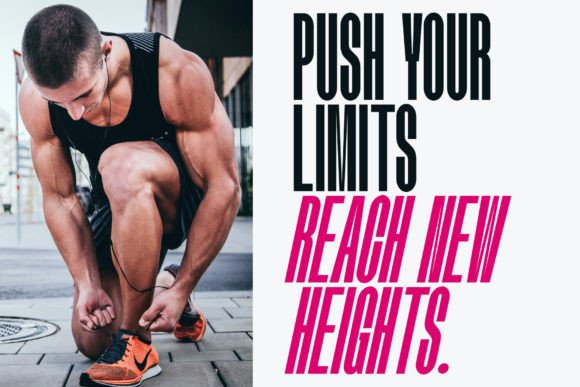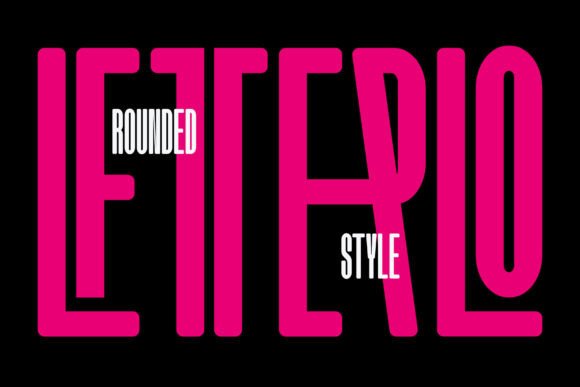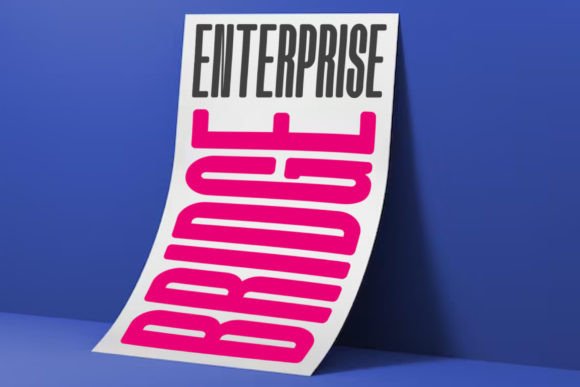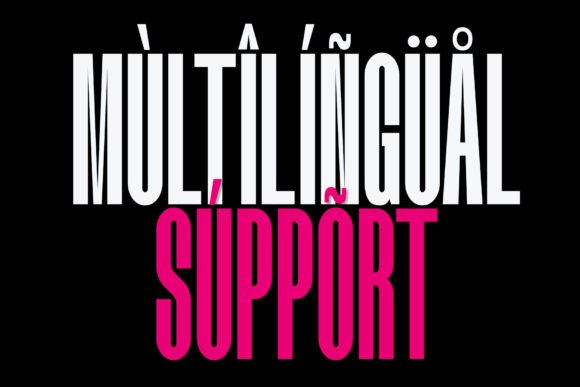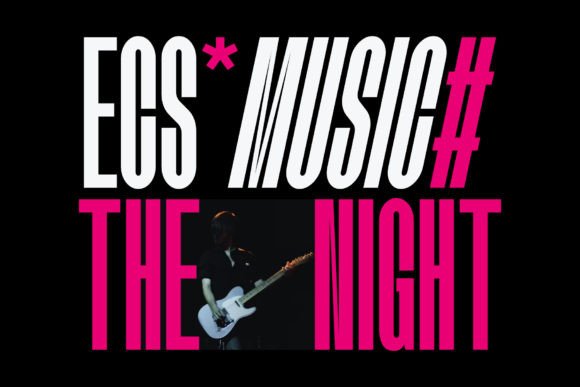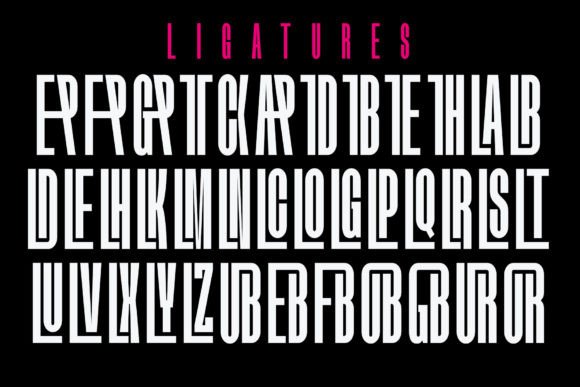
Introducing Grublack: A Modern Condensed Sans Font of Exceptional Typographic Excellence
In the world of typography, a font can make all the difference in the visual impact of a design. Grublack, a sleek and modern condensed sans font, is setting a new standard in typography with its exceptional design and extensive collection of meticulously crafted ligatures. Whether you’re a designer, crafter, or simply a typography enthusiast, Grublack is a font that deserves attention.
A Modern Design with Elegance and Functionality
Grublack’s contemporary design epitomizes elegance and functionality, making it perfect for a wide range of design applications. Its condensed sans style exudes professionalism and contemporary aesthetics, making it an ideal choice for projects that demand a refined and sophisticated look. From editorial layouts to branding materials, advertising campaigns, and digital interfaces, Grublack is a versatile font that can elevate your designs to new heights.
The Power of Ligatures: What Sets Grublack Apart
What truly sets Grublack apart from other fonts is its vast collection of expertly designed ligatures. With a wealth of ligatures at your disposal, Grublack allows you to create seamless connections between characters, infusing your typography with a sense of fluidity and artistry. These ligatures add sophistication, elevating your designs and captivating viewers with their visual allure. Whether you’re looking to create a sense of movement or simply add a touch of elegance to your typography, Grublack’s ligatures are sure to impress.
Applications of Grublack: Endless Possibilities
Grublack’s versatility is one of its greatest strengths, making it suitable for a wide range of design applications. Here are just a few examples of how you can use Grublack to elevate your designs:
- Editorial Layouts: Use Grublack to create stunning editorial layouts that showcase your content in a clear and elegant manner.
- Branding Materials: Grublack is perfect for creating professional branding materials, such as logos, business cards, and letterheads.
- Advertising Campaigns: Make a statement with Grublack’s bold and modern design, perfect for creating eye-catching advertising campaigns.
- Digital Interfaces: Use Grublack to create intuitive and visually appealing digital interfaces that showcase your brand’s personality.
Why Choose Grublack?
With so many fonts available, why choose Grublack? Here are just a few reasons why Grublack stands out from the crowd:
- Exceptional Typographic Excellence: Grublack’s design is meticulously crafted to provide exceptional typographic excellence, making it perfect for designs that demand high-quality typography.
- Extensive Ligature Collection: Grublack’s vast collection of ligatures provides endless possibilities for creative typography.
- Versatility: Grublack is suitable for a wide range of design applications, making it a valuable addition to any designer’s font library.
- Modern and Elegant Design: Grublack’s contemporary design exudes elegance and sophistication, making it perfect for designs that demand a refined look.
In conclusion, Grublack is a modern condensed sans font that sets a new standard in typography. With its exceptional design, extensive collection of ligatures, and versatility, Grublack is a font that deserves attention from designers, crafters, and typography enthusiasts alike. Whether you’re looking to create stunning editorial layouts, professional branding materials, or eye-catching advertising campaigns, Grublack is the perfect choice. Experience the power of Grublack and elevate your designs to new heights.